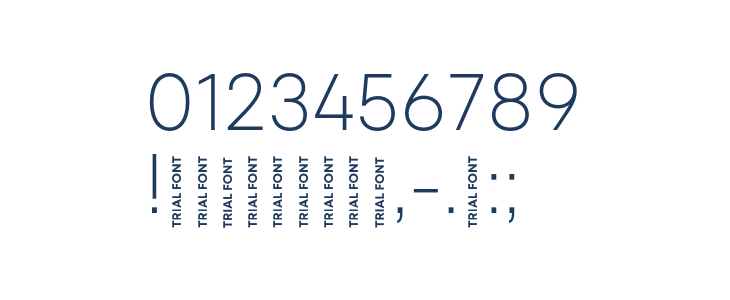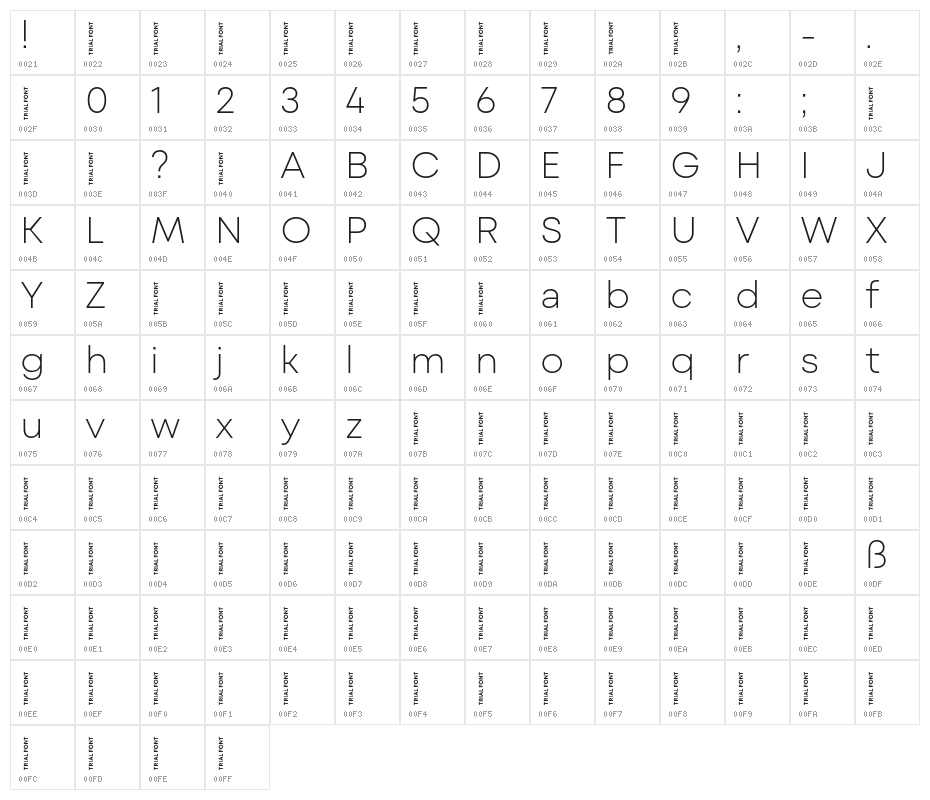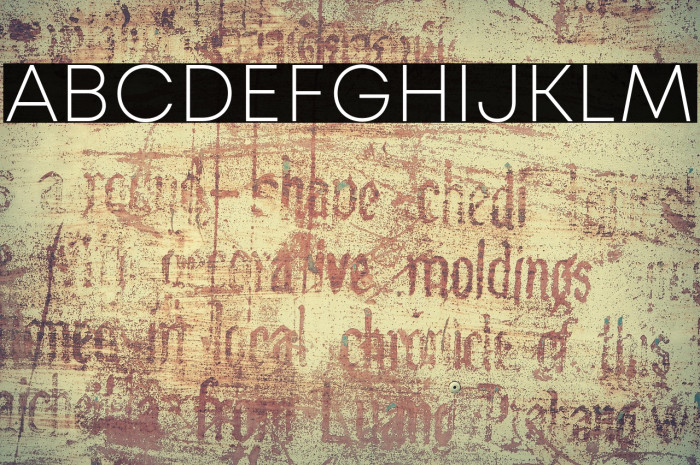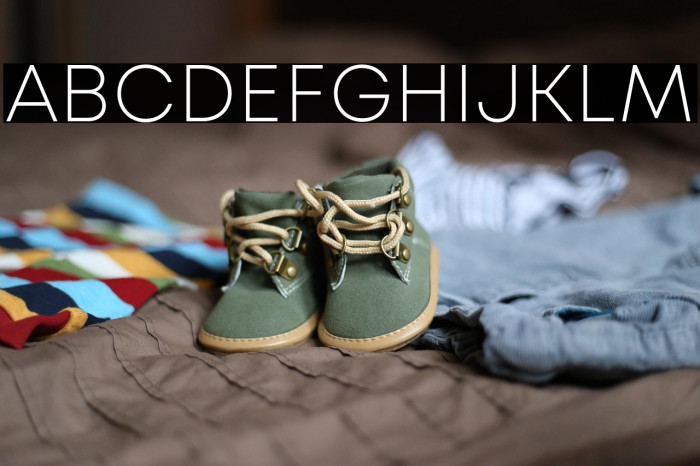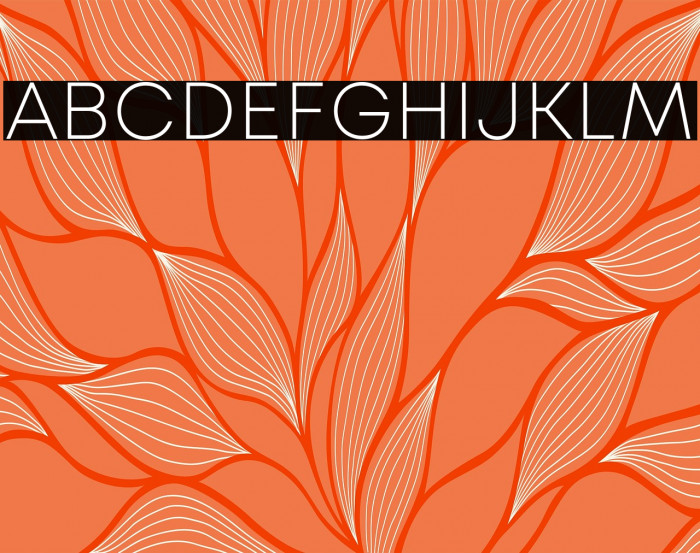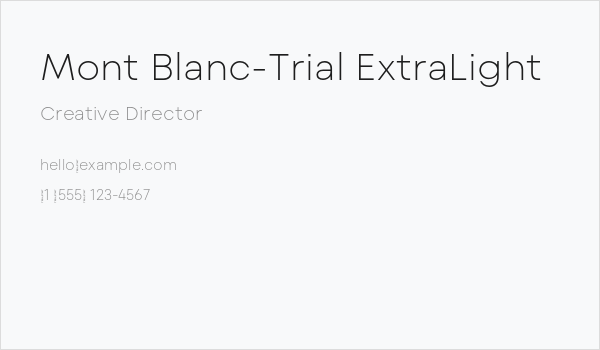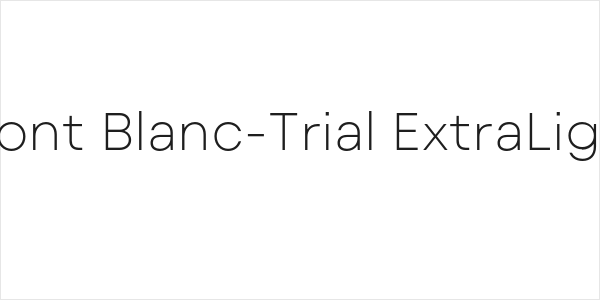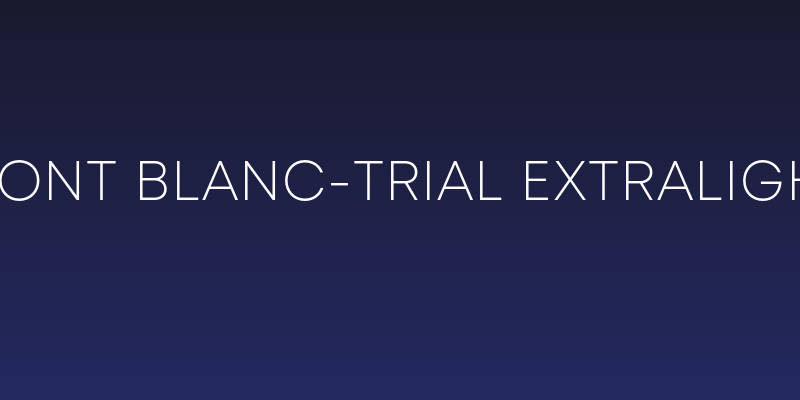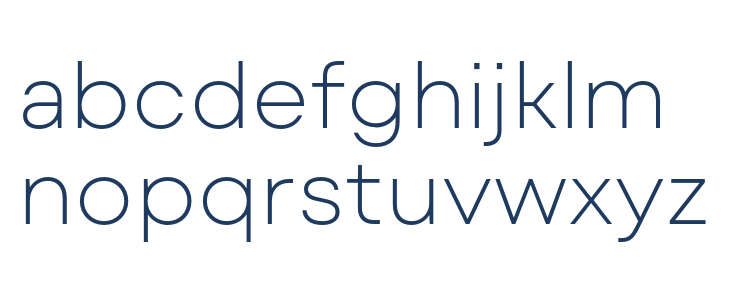
Mont Blanc-Trial ExtraLight Font
Mont Blanc-Trial ExtraLight Description
This font features a clean and modern sans-serif design with a focus on simplicity and readability. The characters are evenly spaced with a consistent stroke width, giving it a sleek and contemporary appearance. The uppercase letters are tall and elegant, while the lowercase letters maintain a harmonious balance. The numerals are clear and distinct, making them easy to read. Special characters are designed with the same minimalist approach, ensuring uniformity across the typeface. This font is ideal for projects that require a modern and professional look.